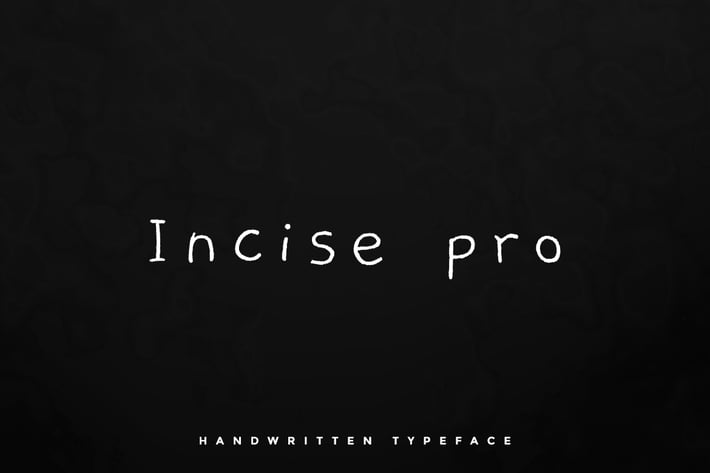
Incise pro - Handwritten typeface + Webfont
Incise Pro Handwritten Typeface
Incise Pro is a Handwritten Typeface, Incise Pro can keep the minimalism at its level best and is a Perfect choice for, signatures, logos, doodles, heading, title, Big-texts. Classic & Decorative Typography Designs.
Font Designed and Crafted by Amanda Rodriguez, Distributed by Webhance Studio.
Incise Pro Handwritten Typeface
Incise Pro is a Handwritten Typeface, Incise Pro can keep the minimalism at its level best and is a Perfect choice for, signatures, logos, doodles, heading, title, Big-texts. Classic & Decorative Typography Designs.
Font Designed and Crafted by Amanda Rodriguez, Distributed by Webhance Studio.